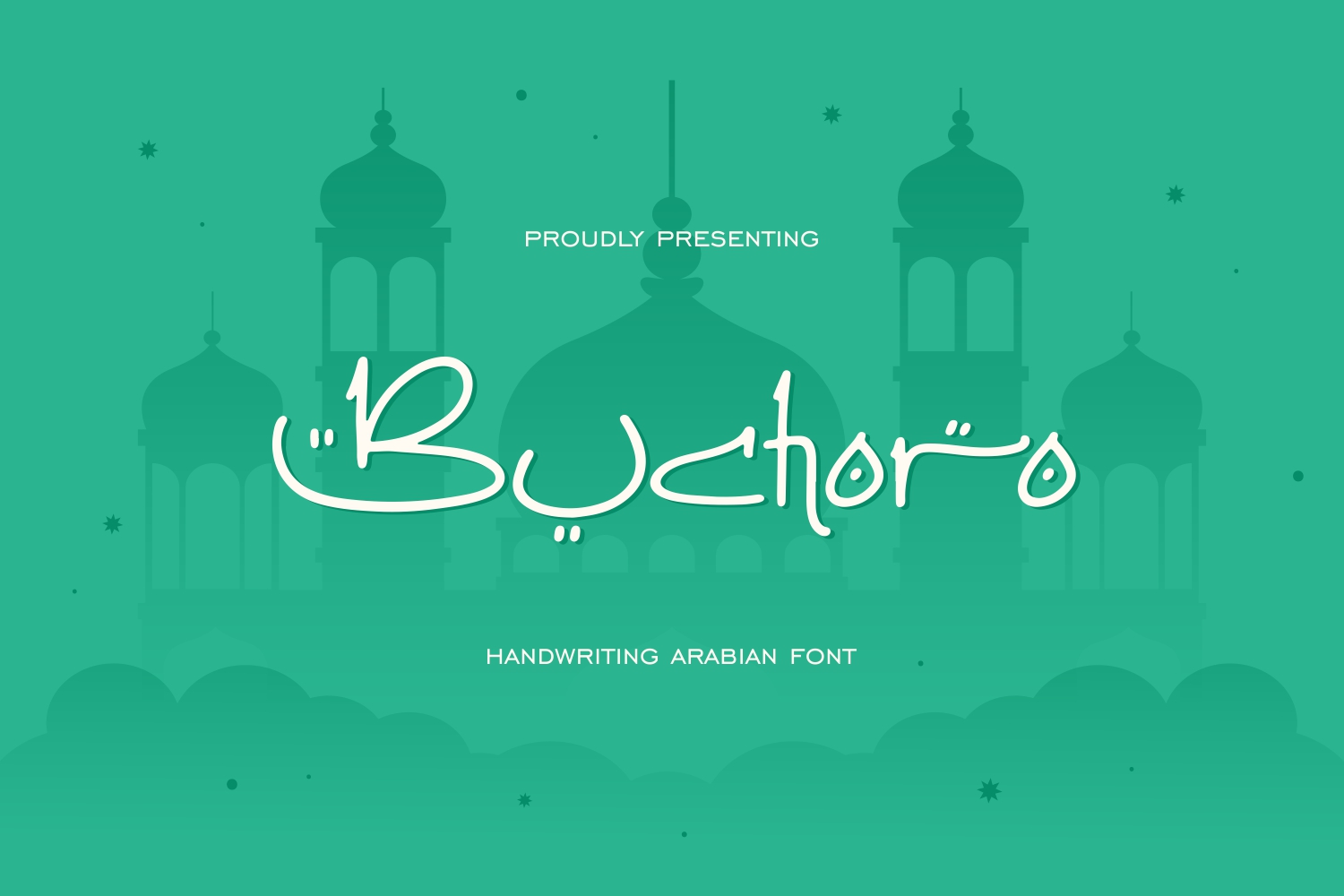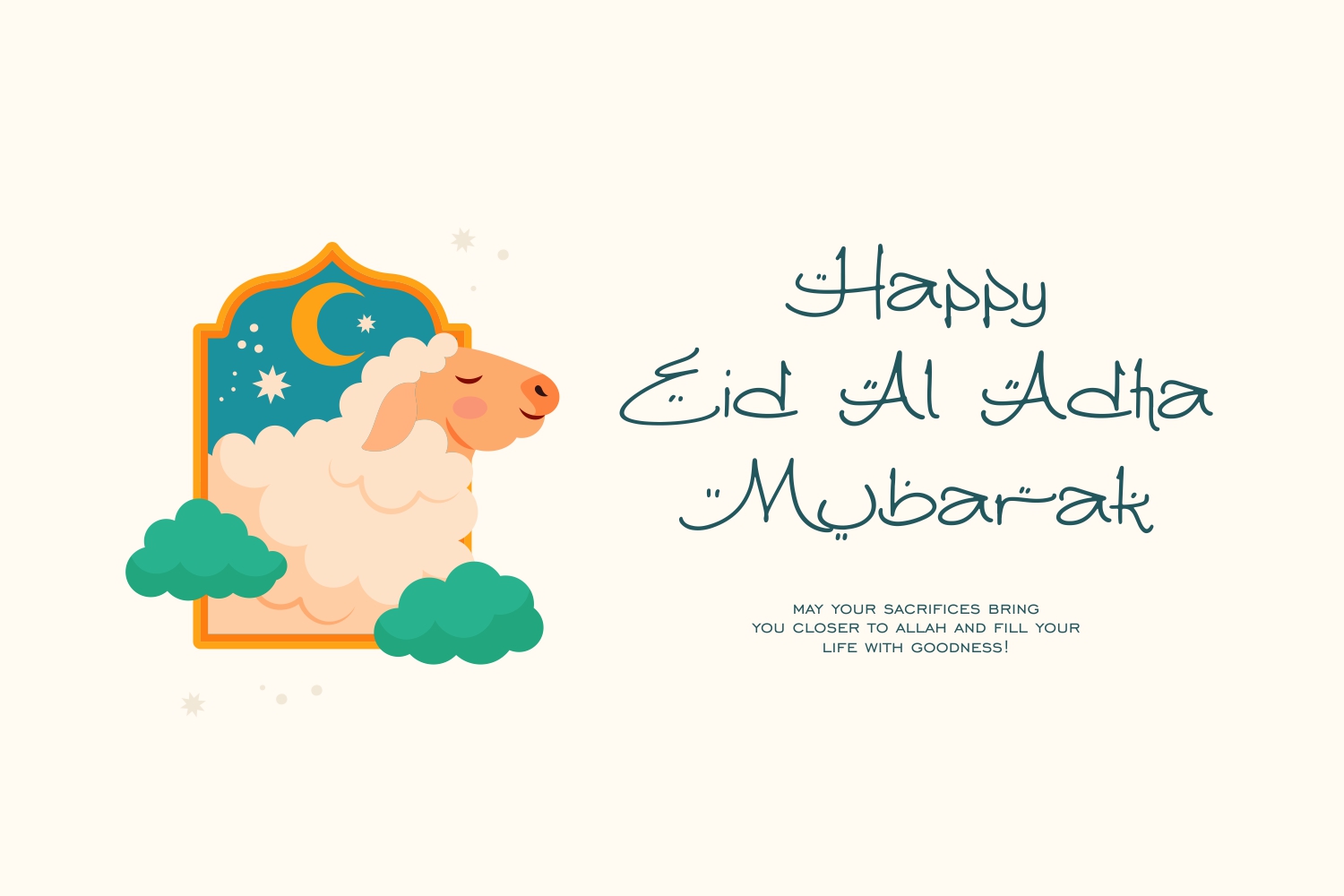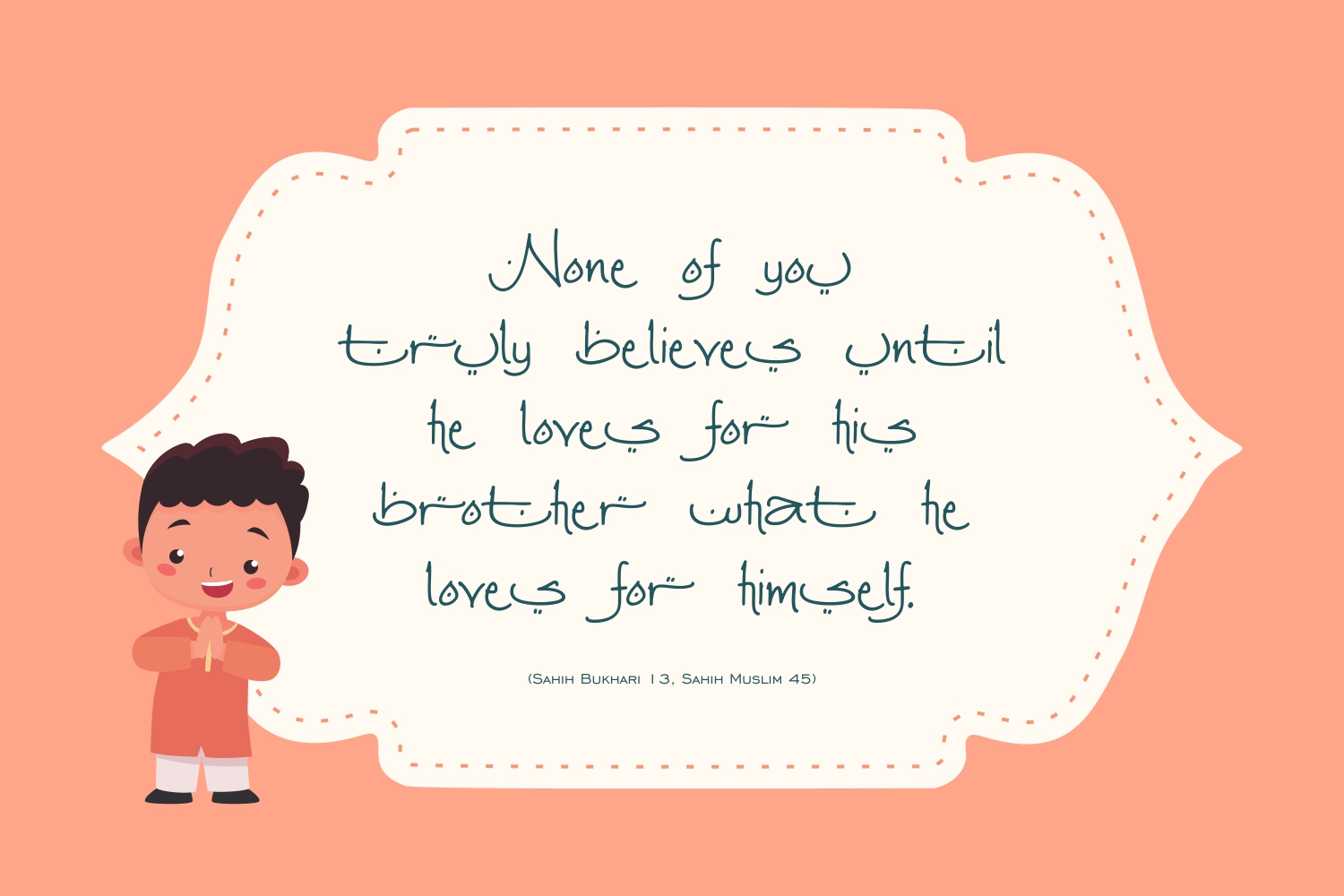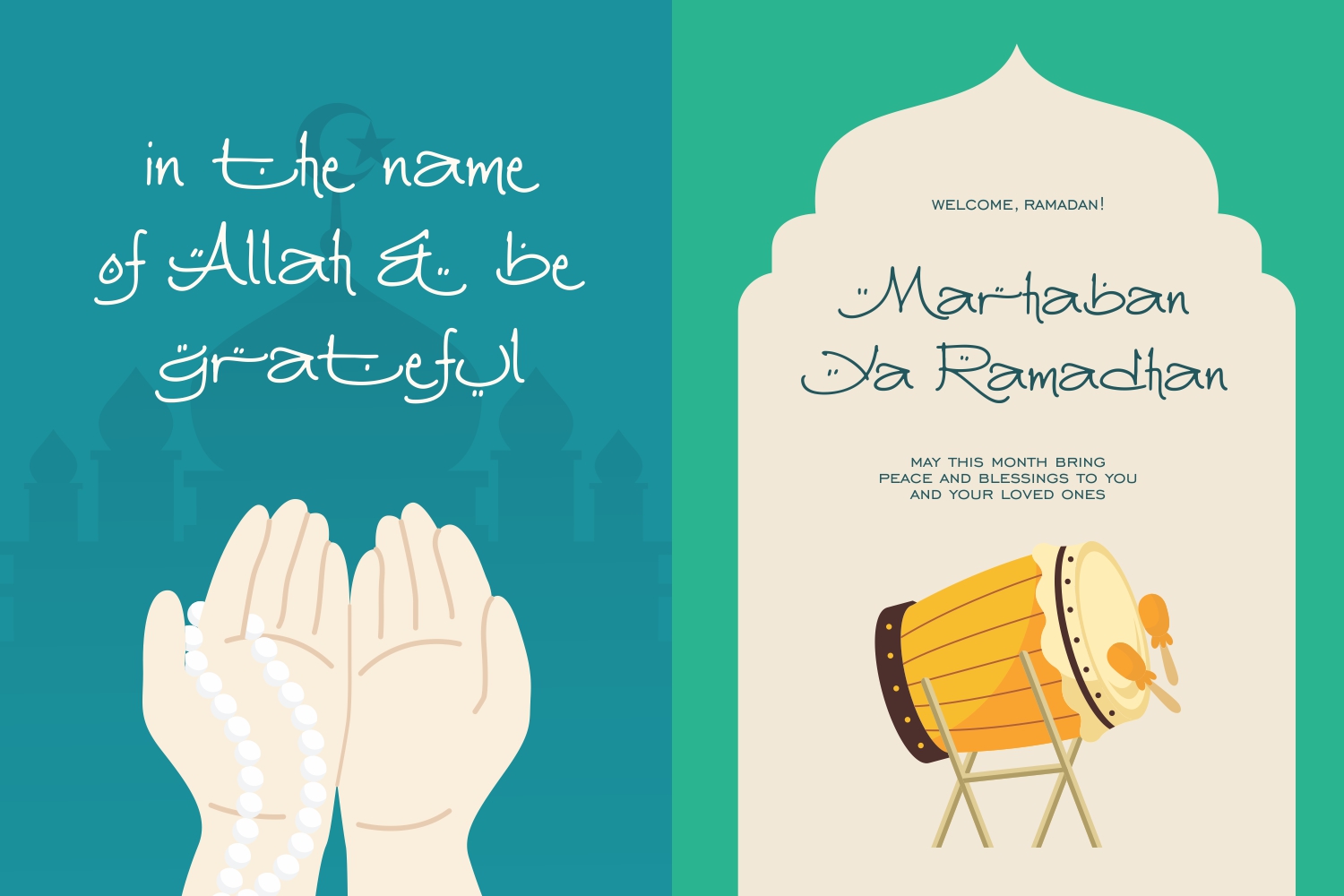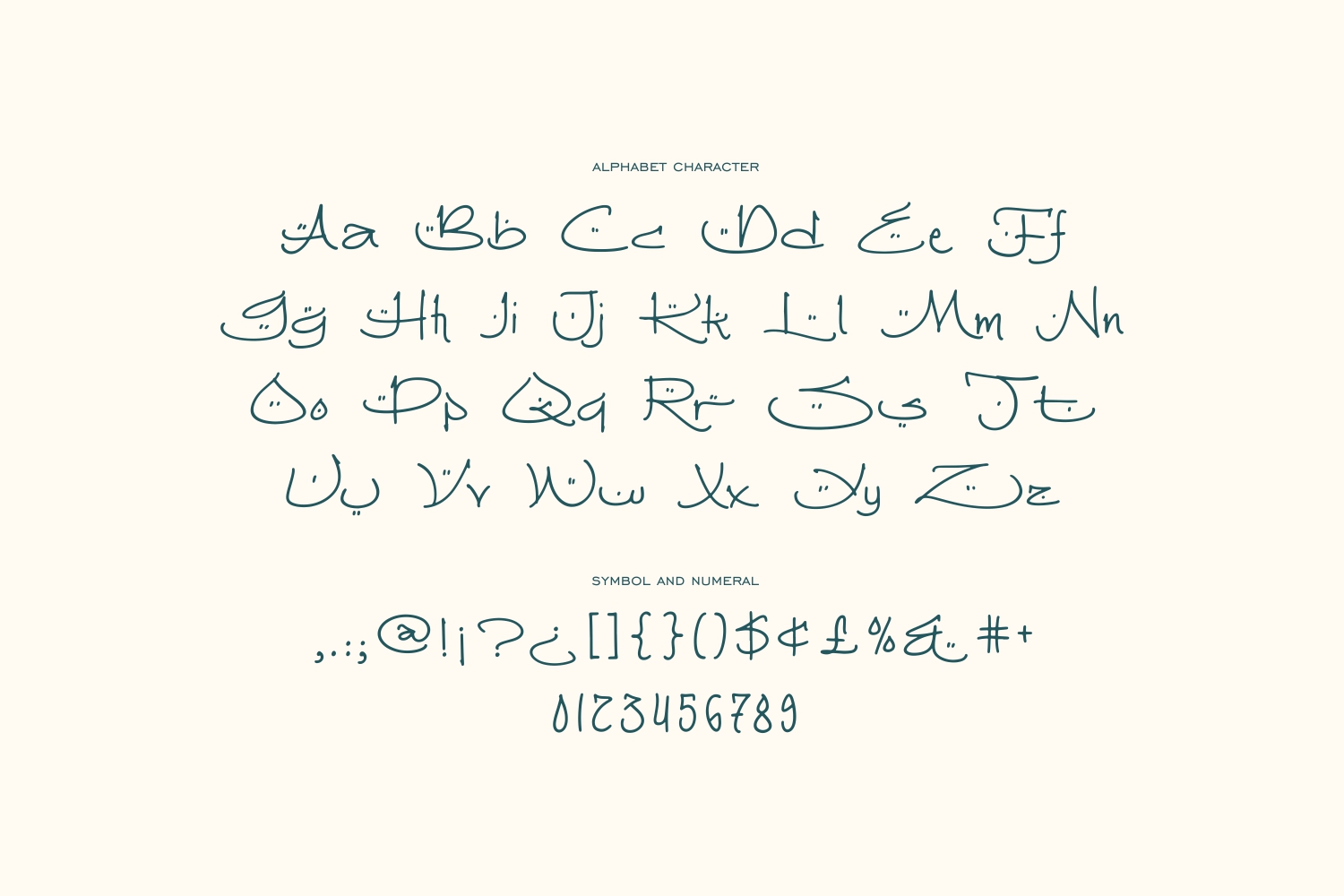
Buchoro is a unique and decorative display font inspired by handwritten Arabic script. It has a charming, playful style that makes it perfect for adding a personal and handcrafted touch to designs. The font includes both Arabic and Latin alphabets, as well as numerals and symbols, providing great versatility for various creative projects, especially those with an Islamic or Middle Eastern theme.
This font is well-suited for a range of applications, including greeting cards for Islamic holidays like Ramadan and Eid al-Adha, posters, children’s book illustrations, and social media graphics. Its friendly, whimsical appearance makes it an excellent choice for designs aimed at a younger audience or for projects that require a soft, approachable feel. The combination of its decorative style and multicultural usability makes Buchoro a standout choice for designers looking for a font with character and warmth.
Buchoro